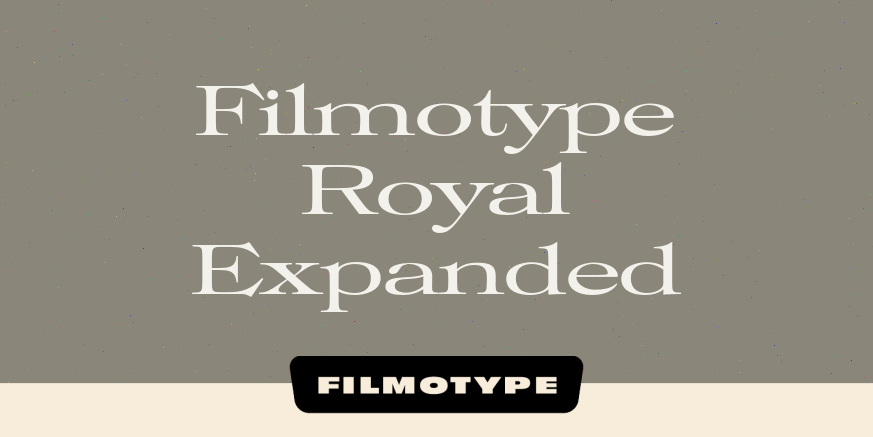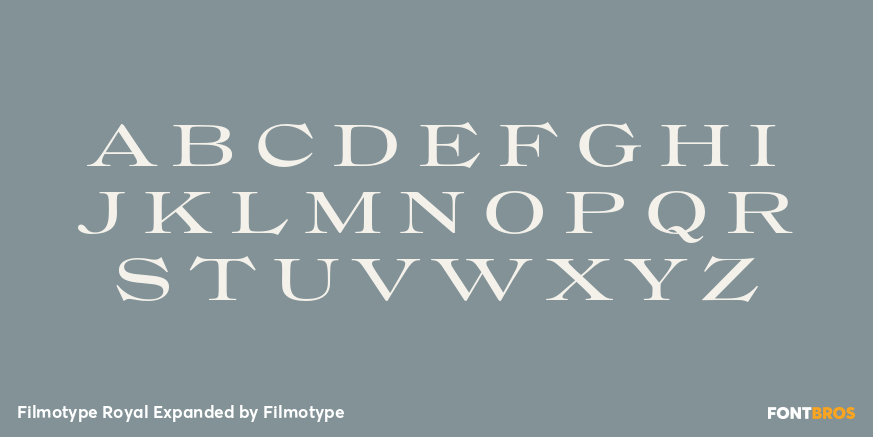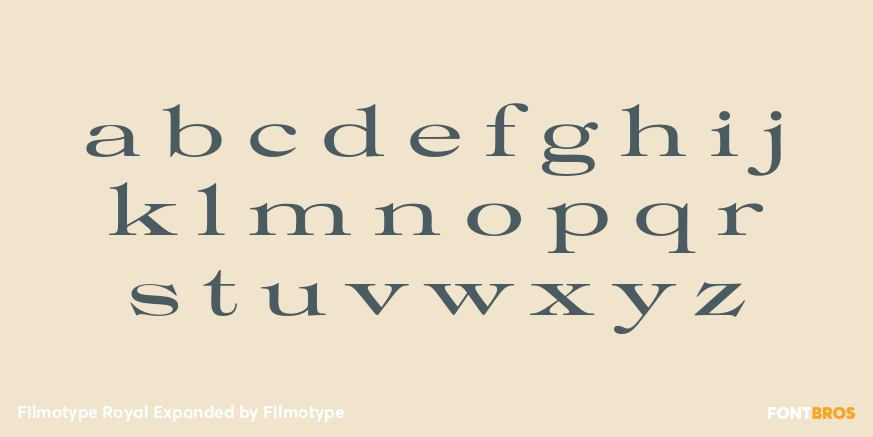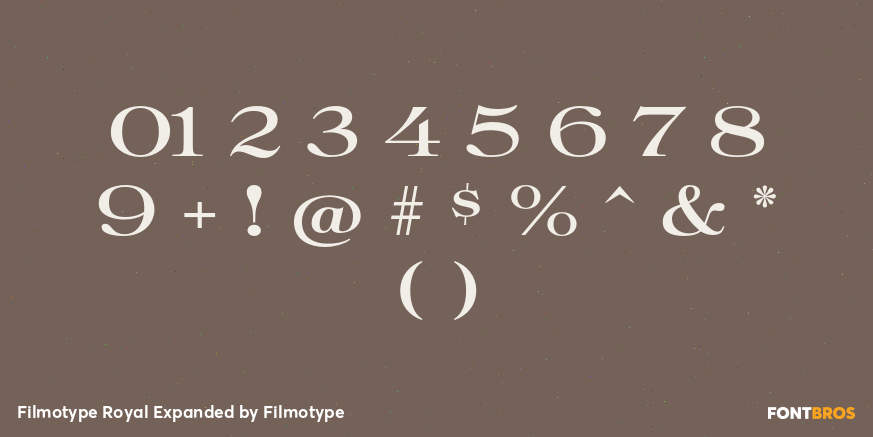
Filmotype Royal Expanded
Originally released in the early-mid 1960s, Filmotype developed and released Royal as one of its earliest Transitional Serif typefaces inspired by lettering used on steam-era passenger train coaches.
Inspired by Royal's aesthetic, type designer Charles Gibbons expanded and developed a full range of styles based on exploring a variety of useful width variations. While it had been Filmotype's practice to generate width variant typefaces using camera stretching techniques, Gibbons instead mastered each alphabet at its native width to create exceptional typesetting throughout the family.
The Filmotype Royal typeface was developed from the original font filmstrips and each additional weight was created as an inspired original, each Royal family member includes a full international character complement, automatic fractionals, ordinals, and a host of alternate characters in dynamic OpenType format.